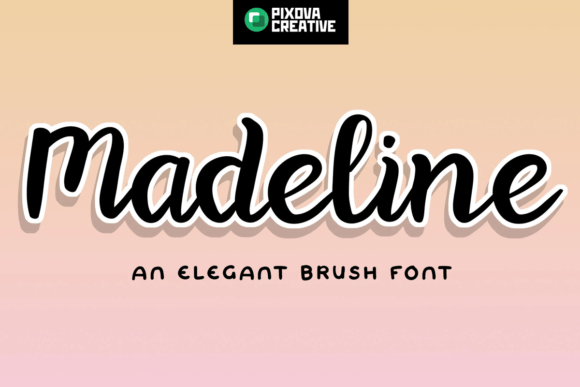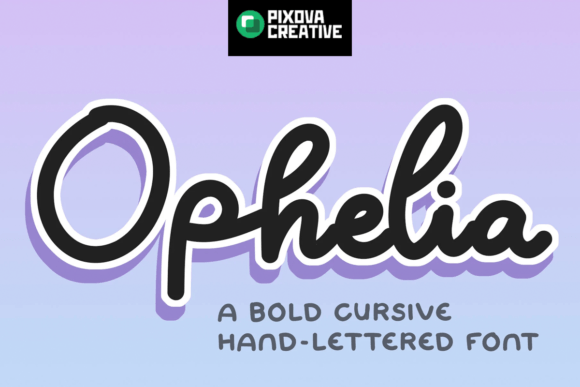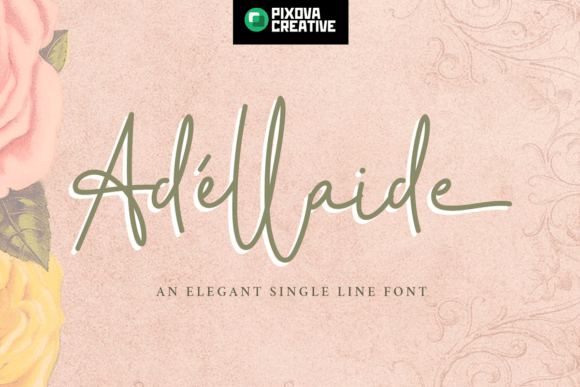
Madeline Ophelia Adellaide Trio Font – Free Download
Introduction to Madeline Ophelia Adellaide Trio Font
Introducing the elegant trio of Madeline, Ophelia, and Adellaide – artisanally crafted fonts with an enchanting blend of chic cursive and authentic handwriting.
Each unique font imbues a touch of personalized charm, perfect for adding a dose of sophistication to any design project Revel in the harmonic dance of typography with these three celestial muses of penmanship.